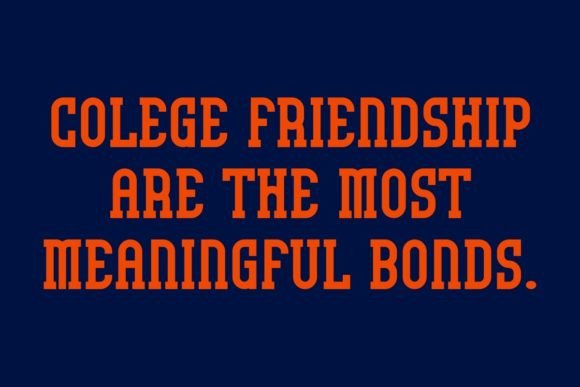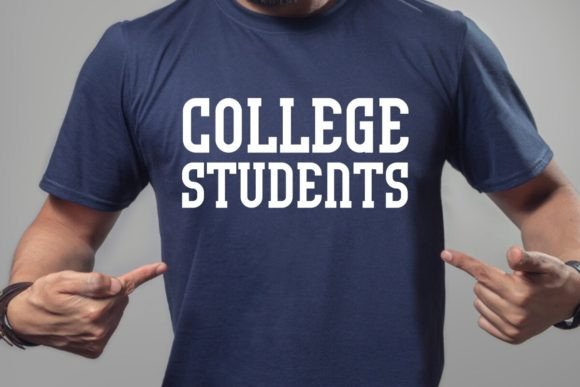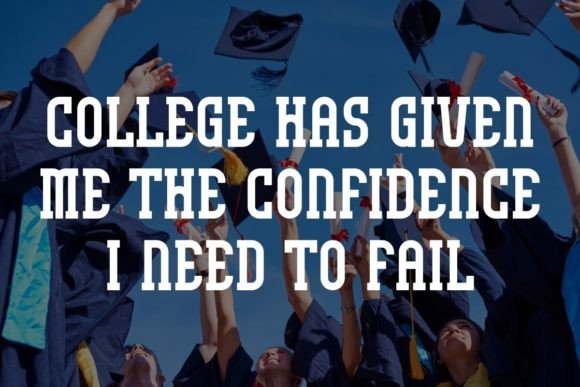
Introduction to Disney School Font
Have you ever found yourself scrolling through social media, stumbling upon a design that sparks inspiration and leaves you wondering, “How did they do that?” For designers, it’s a moment of pure magic – a fusion of creativity and visual appeal that makes you want to recreate it in your own work. And, for many, that perfect design element is a font.
Enter the Disney School Font, a bold and vintage slab serif font that’s taking the design world by storm. With its clean and elegant aesthetic, this font brings a classic yet modern touch to your creative projects, making it the perfect addition to any designer’s toolkit.
Key Features of Disney School Font
- High-quality, vector-based design for seamless scalability in various creative projects.
- Comes in a single size, making it suitable for a wide range of design applications, from small text to large headings.
- Resolution-independent design ensures crisp and clear rendering at any resolution, from low to high DPI.
- Unique, hand-drawn style that captures the whimsical essence of Disney, perfect for adding a touch of magic to any creative project.
Honest Review: Disney School Font
I recently stumbled upon the Disney School Font, and I must say it’s a delightful addition to any creative project. This font is a free download, making it a fantastic resource for designers and artists on a budget. With its high-quality design, it’s perfect for any project that requires a touch of whimsy and magic.
What works well about the Disney School Font is its versatility. It’s suitable for a wide range of applications, from children’s books to educational materials. The font’s unique style and charming characters make it a great choice for designers looking to add some personality to their work.
- ✨ High-quality design
- ✨ Suitable for various applications
Overall, I’m impressed with the Disney School Font. It’s a great resource for designers and artists looking to add some magic to their work. While it may have some limitations, its unique style and high-quality design make it a worthwhile addition to any design library.
The Disney School Font is a high-quality design resource that can elevate your creative projects. This free download is perfect for those looking to add a touch of whimsy and charm to their designs.
Some tips for getting the most out of the Disney School Font include experimenting with different font sizes and colors, and combining it with other design elements to create a unique look.
The Disney School Font is commonly used in children’s party invitations, educational materials, and creative projects that require a playful and whimsical touch.